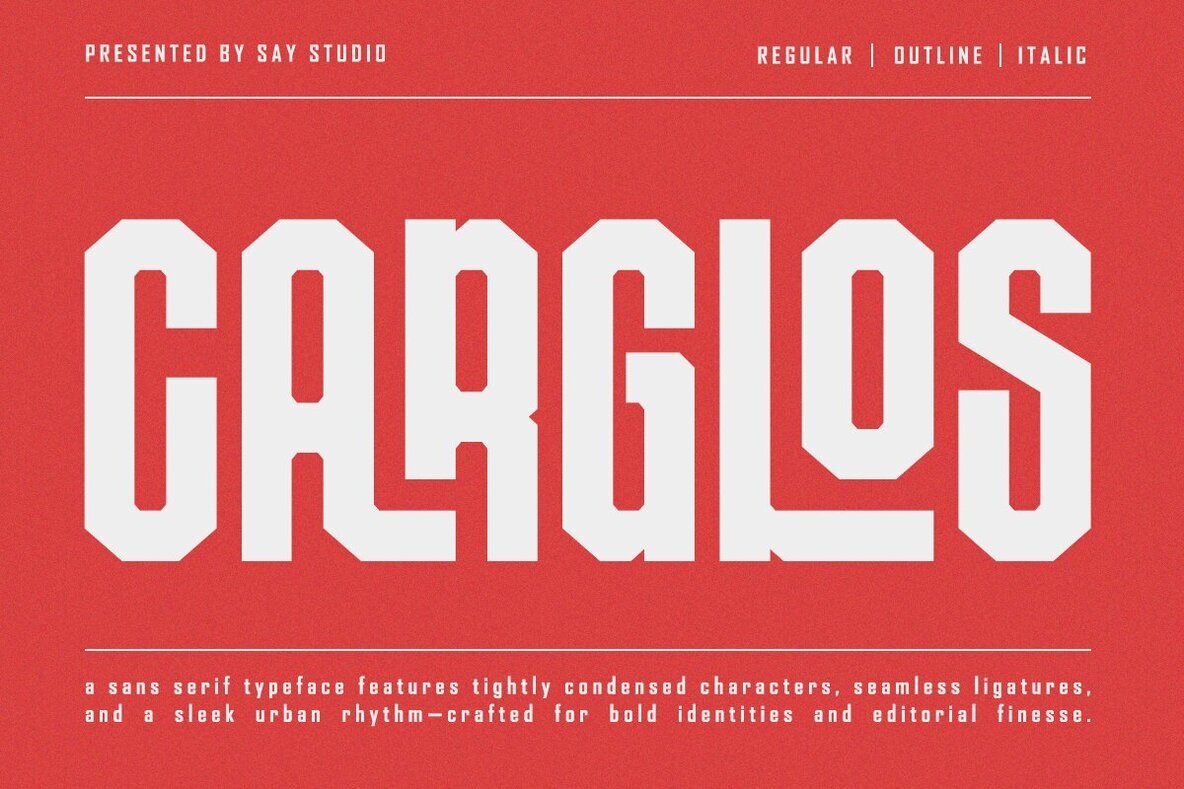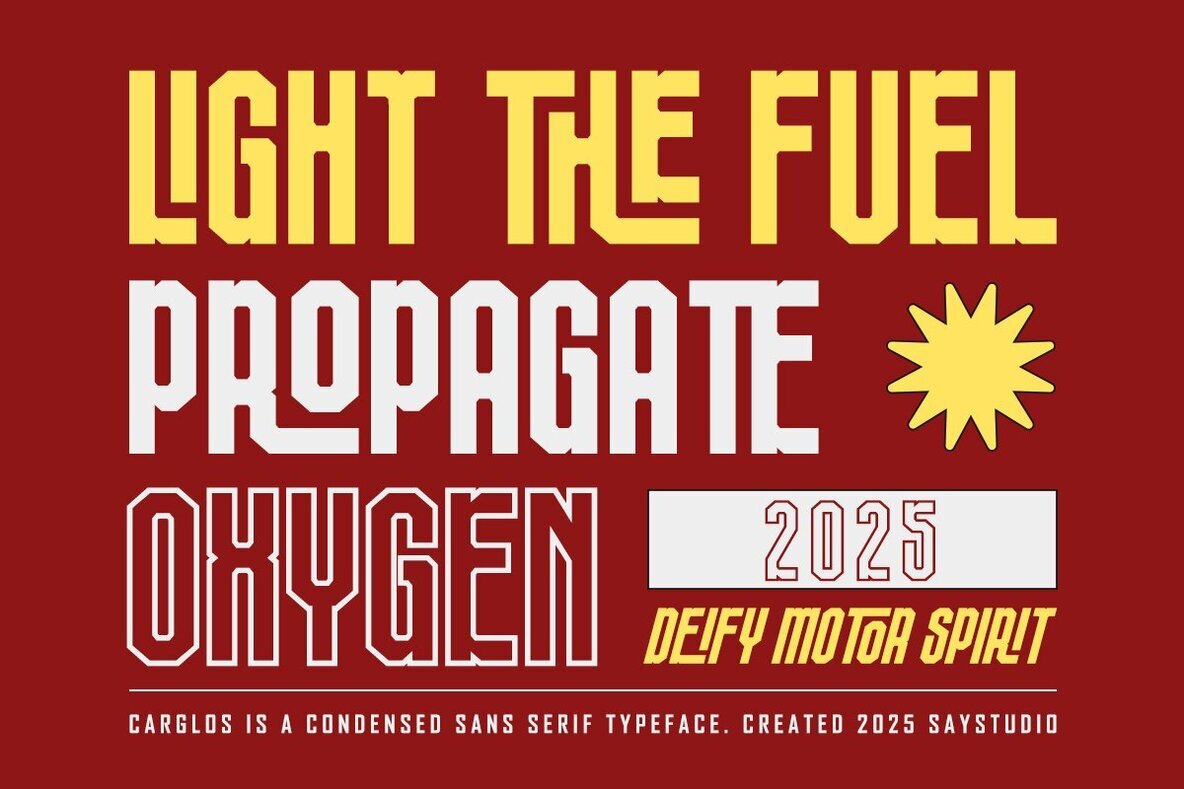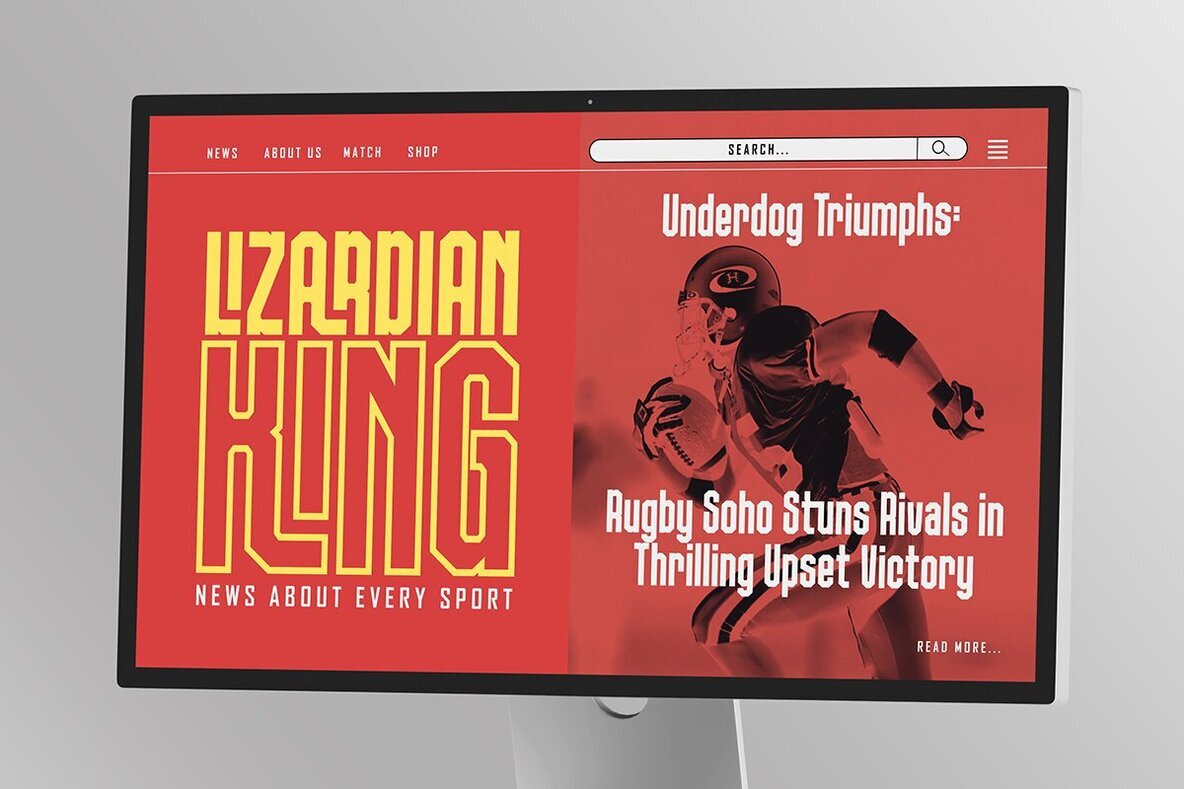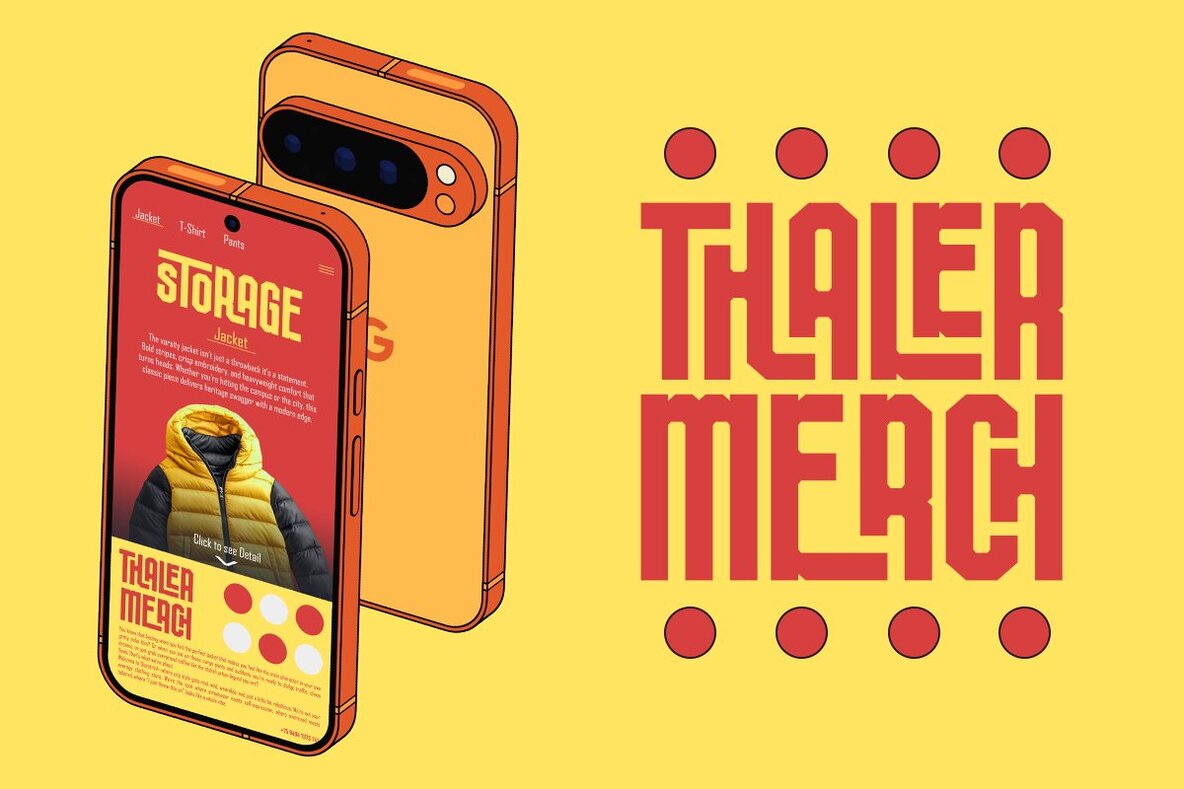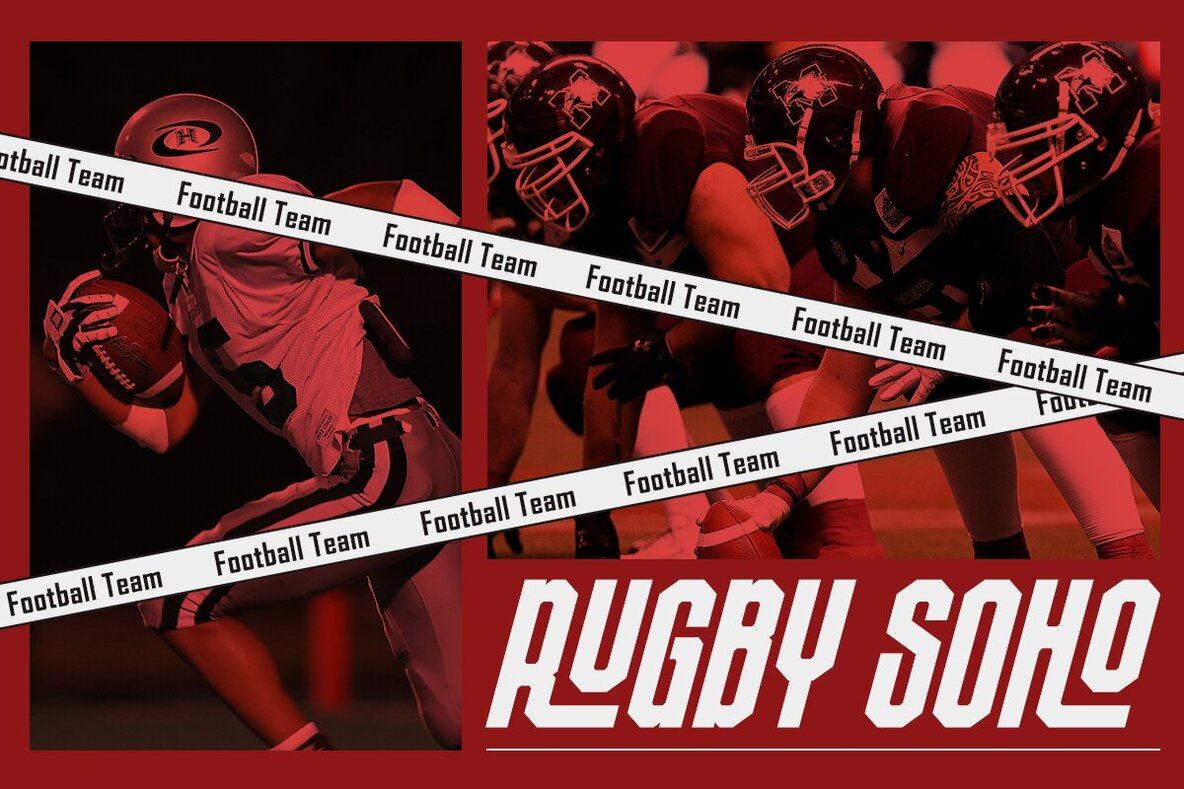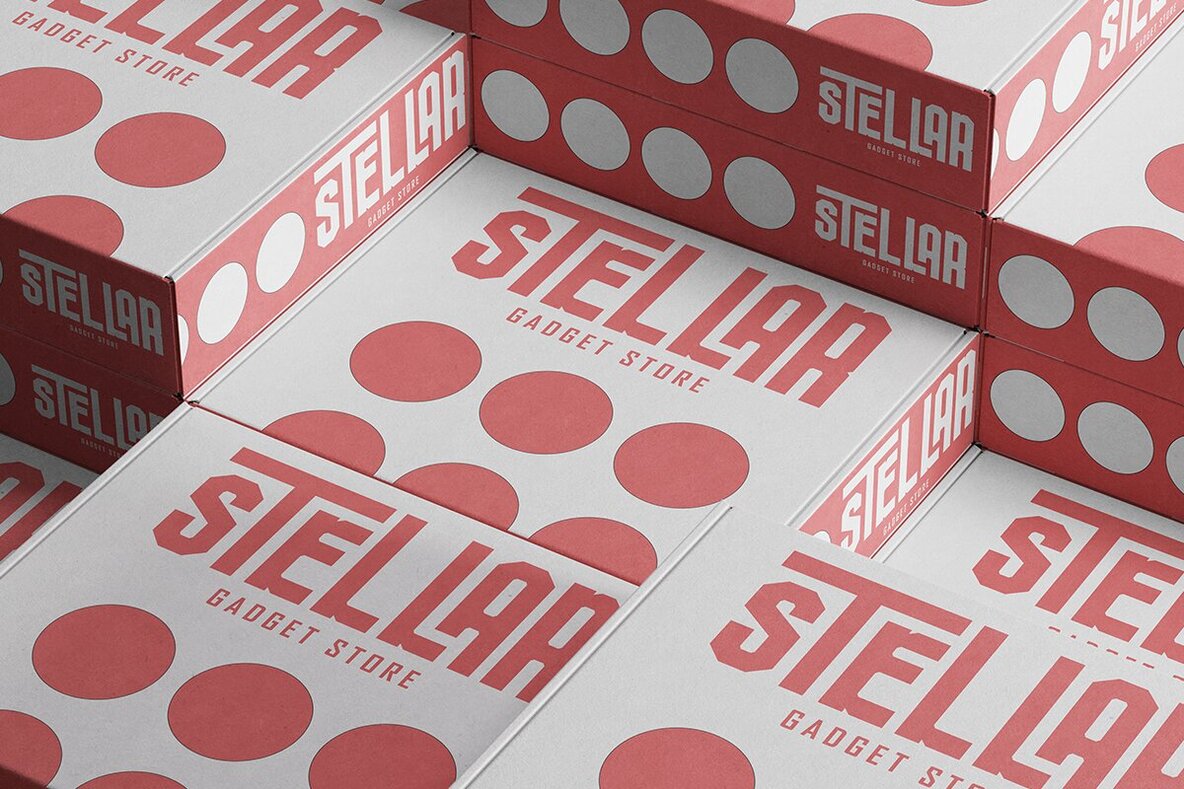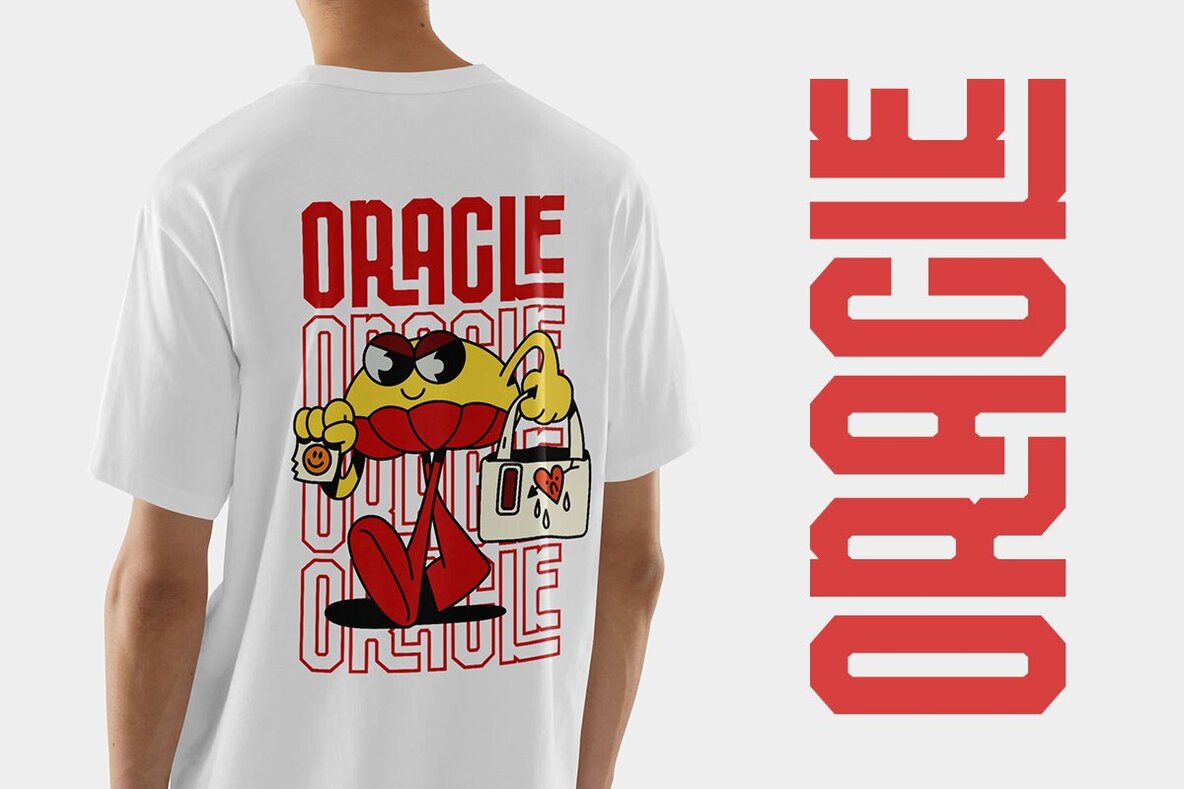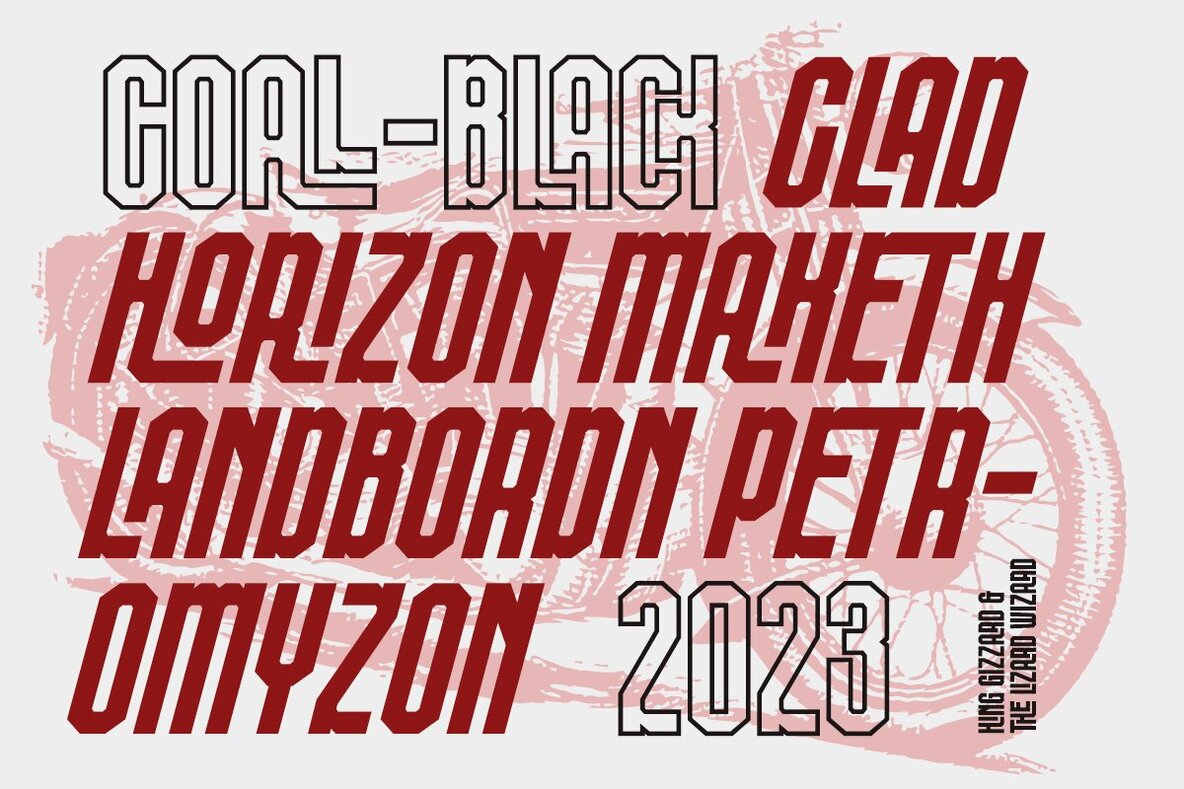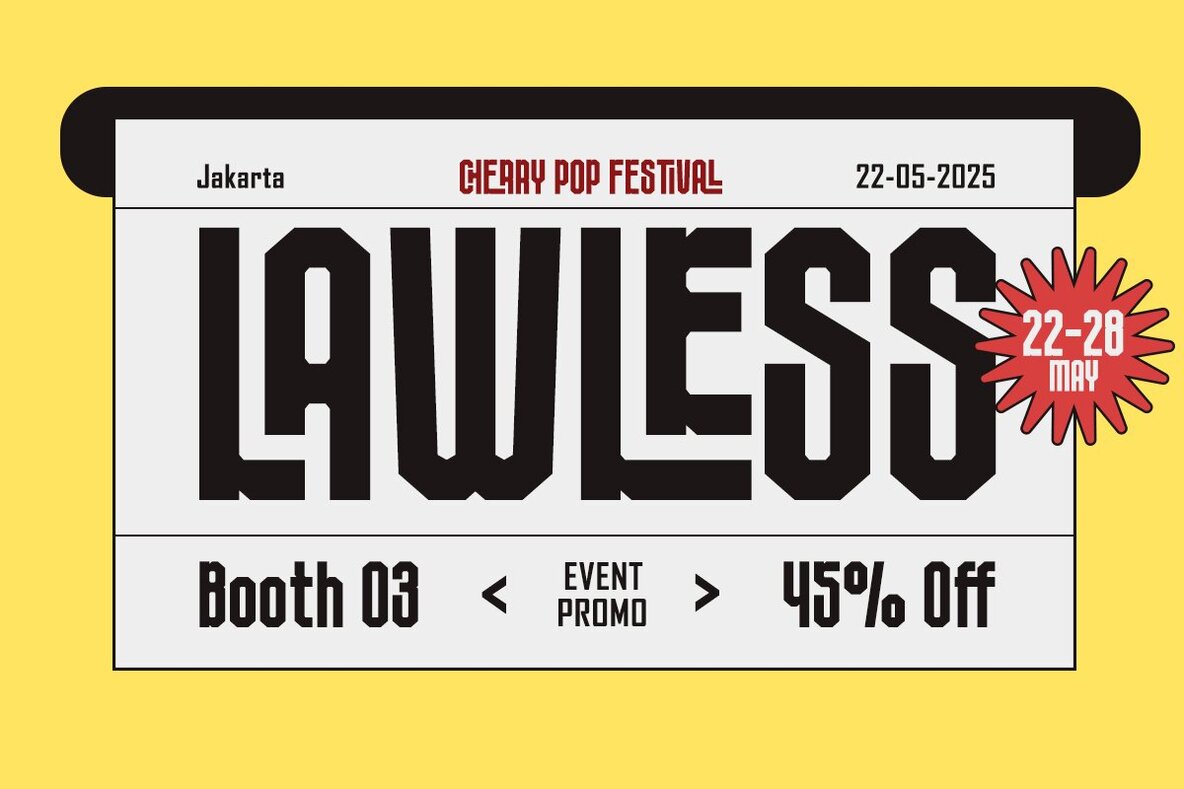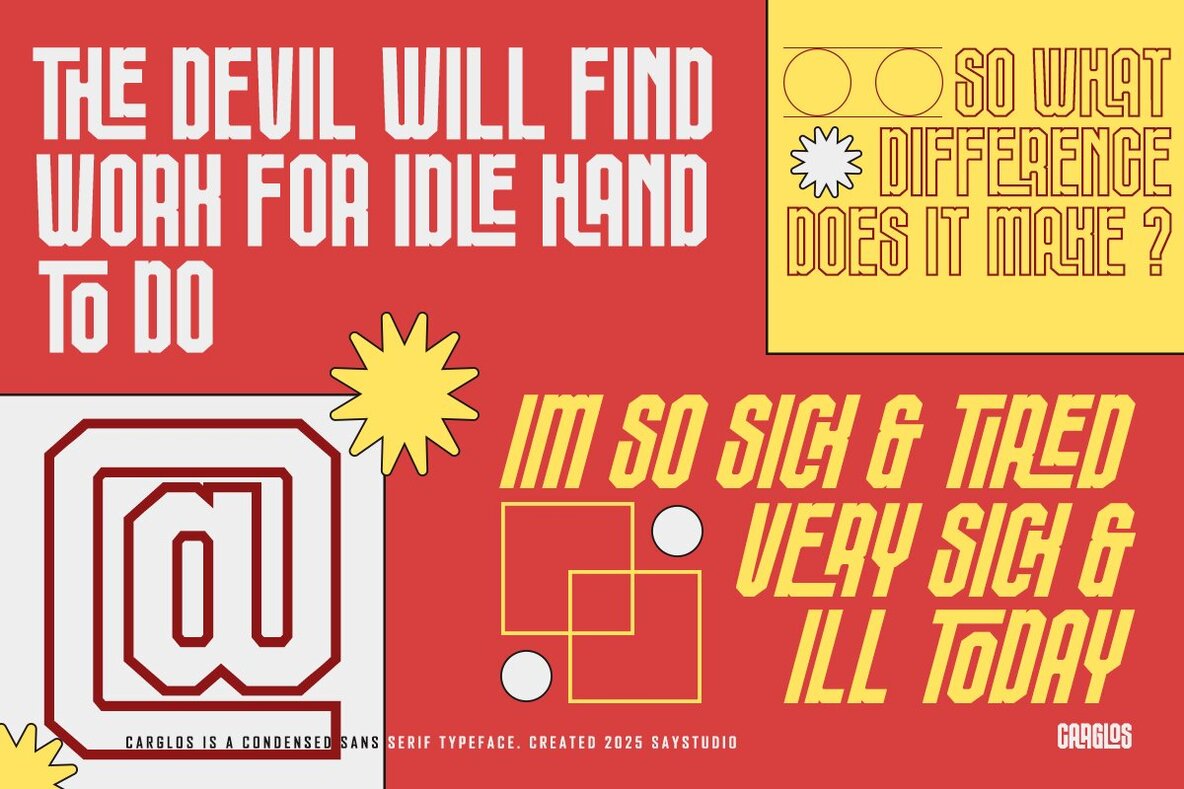
Carglos Font
Carglos is a distinctive and simple condensed sans serif font, brimming with character. Its bold persona makes it ideal for large point sizes, yet it retains its charm even when scaled down. Carglos is versatile, suited for headlines, billboards, magazines, websites, titles, posters, branding, and logos. A wealth of ligatures, alternates, and features allows each project to capture a unique essence.Carglos: A Bold Condensed Sans Serif with Personality